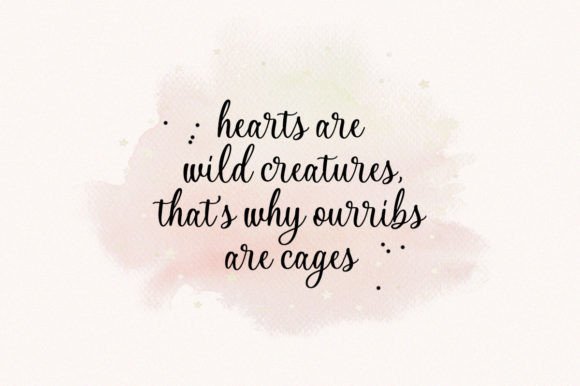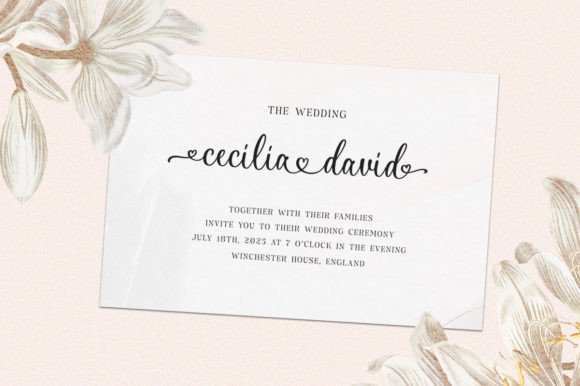
About Emely and Peter Font
Emely and Peter is a beautiful modern calligraphy script font. The swashes and ornaments make this font looks suitable for wedding, and feminine projects. Add this lovely script font to all your projects that require a romantic touch.